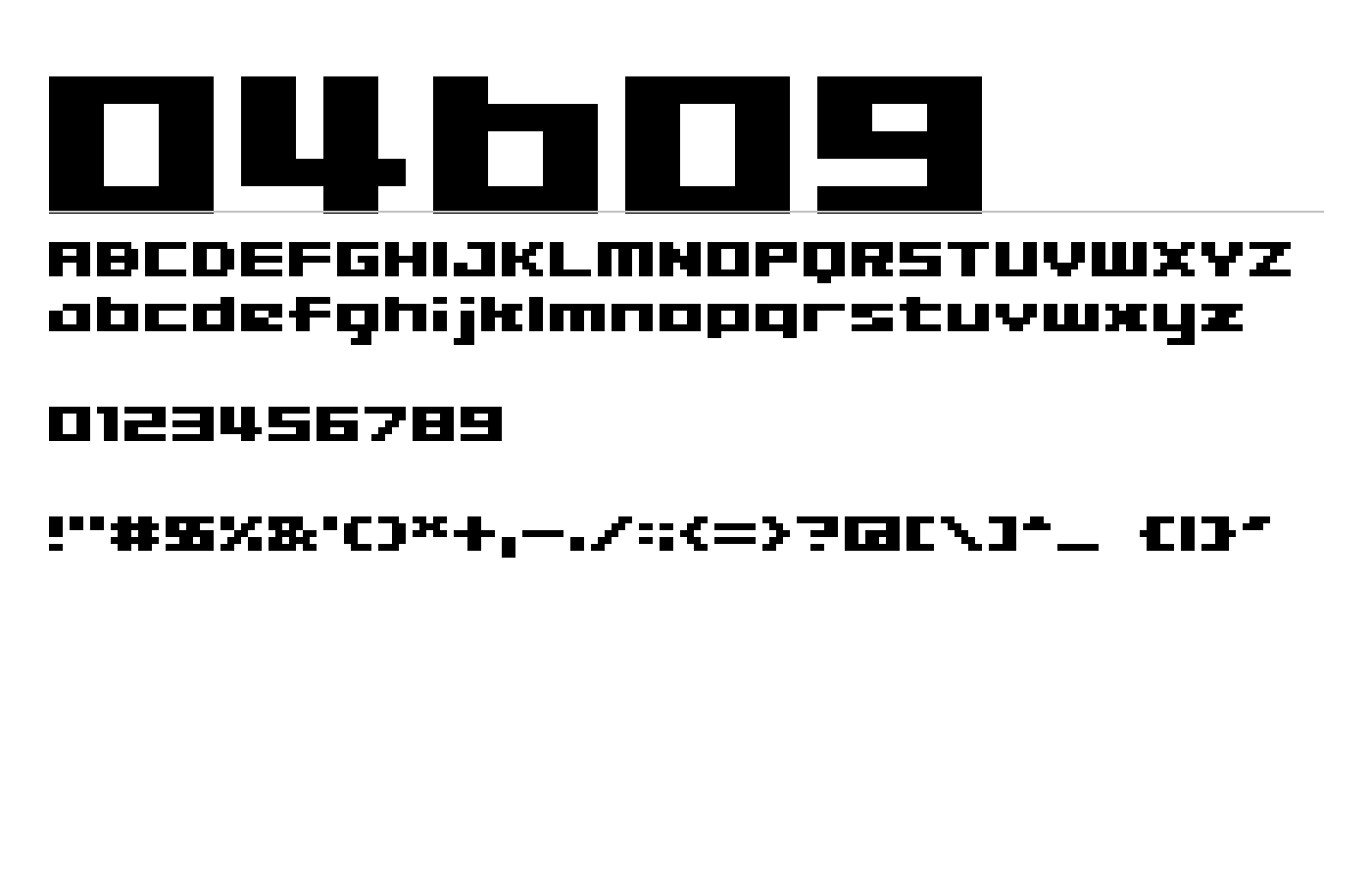
04b09 is a bold, geometric pixel-style sans serif font characterized by its blocky, square shapes and uniform stroke weight that evoke a digital or retro video game feel. Its compact letterforms with consistent spacing make it ideal for creating eye-catching headlines, logos, or designs that require a tech-inspired, nostalgic, or minimalist aesthetic. This font works best in digital environments, signage, or branding where clarity and a distinctive modern-retro vibe are desired.
04b09 Font
About 04b09 Font